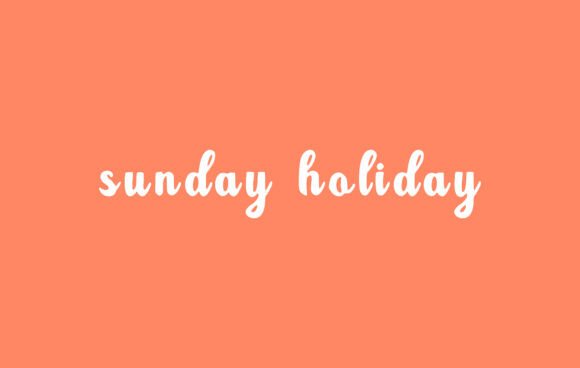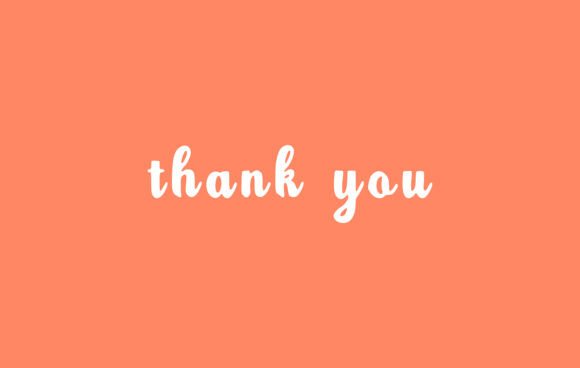
The Divine Font: Elevating Your Designs with a Touch of Romance
I’ll never forget the moment I stumbled upon the Divine font. I was working on a wedding invitation project for a client, and I was struggling to find the perfect font that would capture the essence of their special day. The font had to be elegant, romantic, and legible. After hours of scouring through font libraries, I finally stumbled upon Divine, and it was love at first sight! 💕
With its authentic handwritten feel and romantic touch, Divine font has become a staple in my design toolkit. In this article, I’ll share with you what makes this font so special, its features, and how to make the most of it in your designs.
An Honest Review of Divine Font
What I Love About Divine Font ✨
- ✅ Legibility: Divine font is incredibly legible, making it perfect for both title and body text.
- ✅ Romantic Touch: The font’s handwritten feel adds a touch of romance and elegance to any design.
- ✅ Versatility: Divine font can be used for a wide range of designs, from magazine headlines to social media graphics, branding, and wedding invitations.
- ✅ OpenType Features: The font comes with a range of OpenType features, including glyphs and stylistic alternates, which allow for endless creative possibilities.
While Divine font is an amazing addition to any design project, there are a few things to keep in mind:
- ⚠️ Limited use in body text: While the font is legible, it’s best used in moderation. Using it for long blocks of body text may not be the most effective choice.
- ⚠️ Kerning issues: As with any font, kerning issues may arise when using Divine font. Make sure to adjust the kerning to ensure optimal readability.
The Designer Inspiration Behind Divine Font
Divine font was designed with the intention of creating a beautiful, romantic font that would capture the essence of love and elegance. The designer, inspired by traditional calligraphy and handwritten scripts, aimed to create a font that would be both legible and stylish.
Q: What is the best way to use Divine font?
A: Divine font is best used for titles, headings, and short blocks of text. It’s perfect for designs that require a touch of romance and elegance.
Q: Is Divine font suitable for body text?
A: While Divine font is legible, it’s not recommended for long blocks of body text. It’s best used for titles, headings, and short paragraphs.